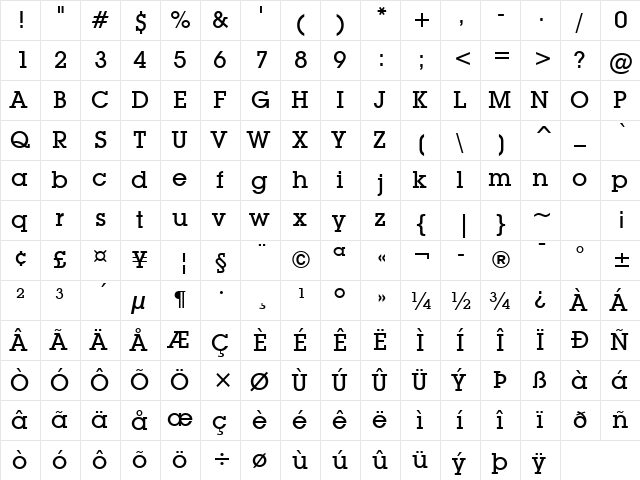
LubalGraph Md BT Medium Font Preview
LubalGraph Md BT Medium
Design Context for LubalGraph Md BT Typeface
LubalGraph Md BT offers clean, dependable letterforms without strong stylistic allegiance, making it a practical choice for designers who need flexibility.